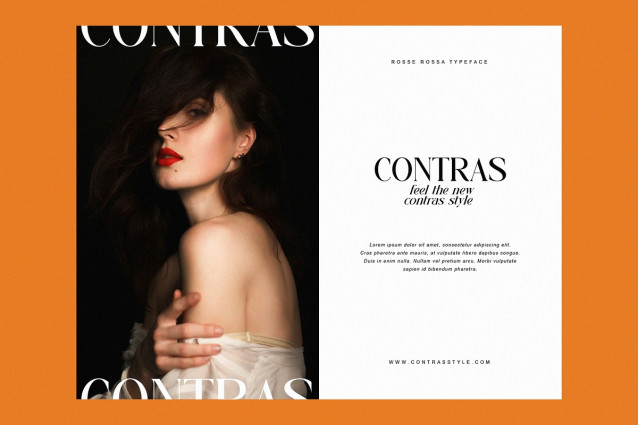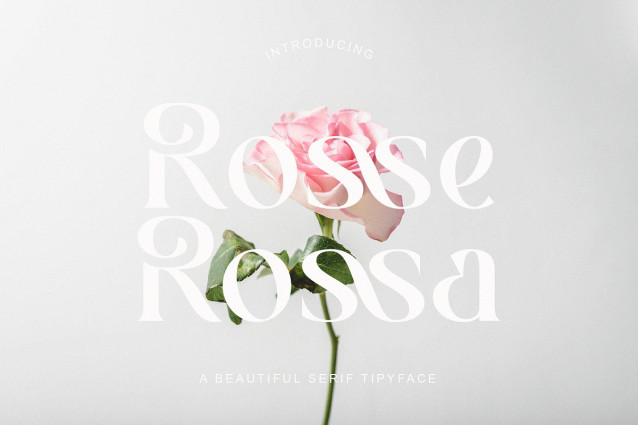
Rosse Rossa Font
Rosse Rossa Font A beautiful and modern serif typeface. With its modern and elegant appearance, Rosse Rossa brings a luxurious and clean style to your projects such as websites, modern logos, branding identities, social media quotes, wedding stationery and various other needs!
Rosse Rossa features unique and modern capital letters A to Z and is also equipped with ligatures and alternative letters, making it a beautiful font that can be adapted to various large projects that you want.